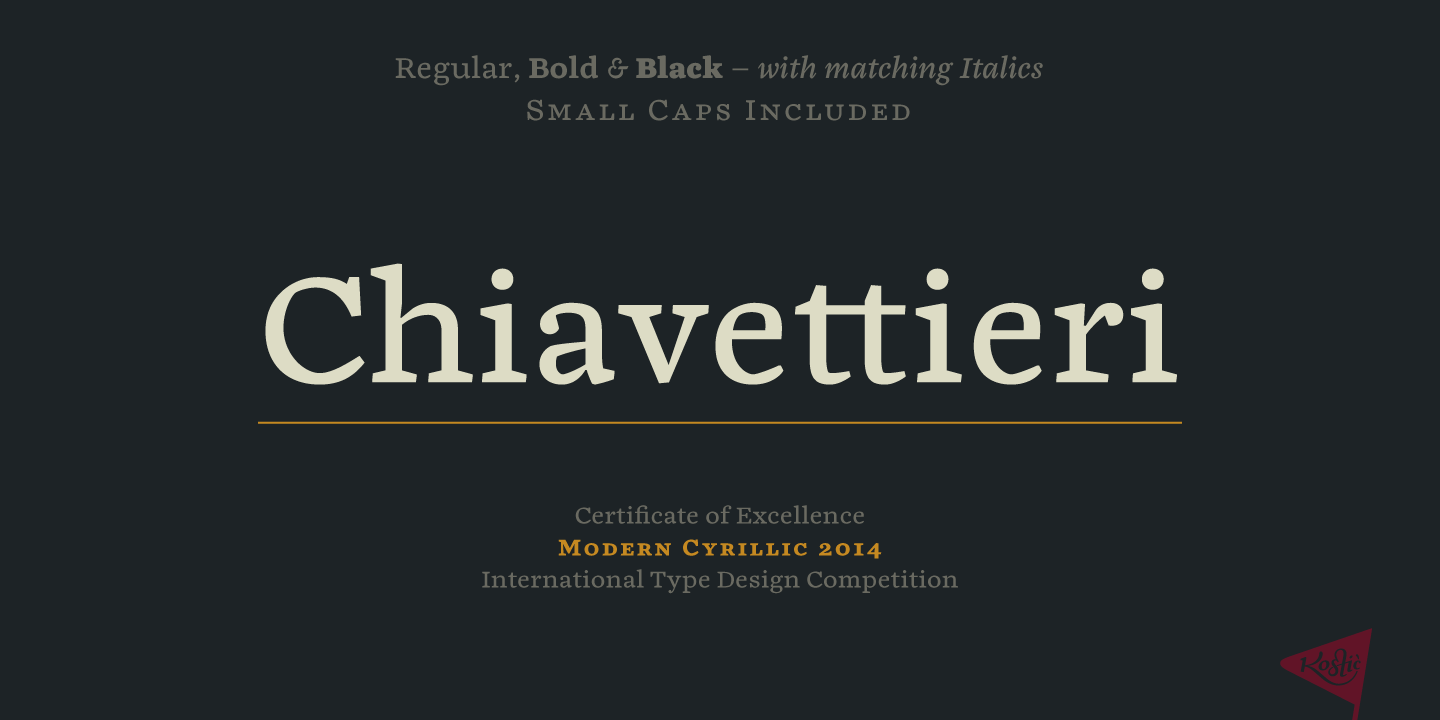
The Chiavettieri Font is incredibly versatile, making it an excellent choice for a wide range of design projects that demand a blend of classic elegance and robust readability. Imagine it providing a timeless foundation for corporate reports, adding a sophisticated touch to luxury brand collateral, or ensuring crystal-clear legibility for editorial content in high-end publications. It's also perfect for crafting distinguished logos that convey heritage and trust, designing impactful headlines for cultural institutions, or enhancing the visual appeal of professional websites. Its often well-balanced proportions and refined serifs make it ideal for anything that needs to communicate authority, tradition, and enduring quality, from legal documents to museum exhibits.
What makes the Chiavettieri Font so exciting is its ability to effortlessly bridge the gap between historical charm and contemporary application. It's not just a typeface; it's a testament to classic typography that offers both unwavering reliability and understated beauty. Its often strong serifs and clear character forms provide a commanding yet approachable visual presence, making your content appear both authoritative and inviting. In a world of fleeting trends, this font stands out by offering a timeless appeal, ensuring your message is not only seen but truly absorbed with a sense of gravitas and enduring relevance.
The Chiavettieri Font family typically includes a comprehensive range of weights and styles to provide maximum flexibility for designers. While specific variations can differ, you can often expect to find light, regular, medium, bold, and sometimes even extra-bold versions, along with corresponding italic styles. This extensive array of options allows for sophisticated typographic hierarchies, making it suitable for both detailed body text and prominent display headlines, ensuring the font can adapt seamlessly to various design needs.
For those looking to infuse their designs with a strong sense of classic elegance, clear readability, and professional authority, the Chiavettieri Font Free Download is an invaluable resource. This robust typeface, with its timeless appeal and exceptional versatility, will undoubtedly elevate your creative projects and ensure your message is delivered with impactful precision.